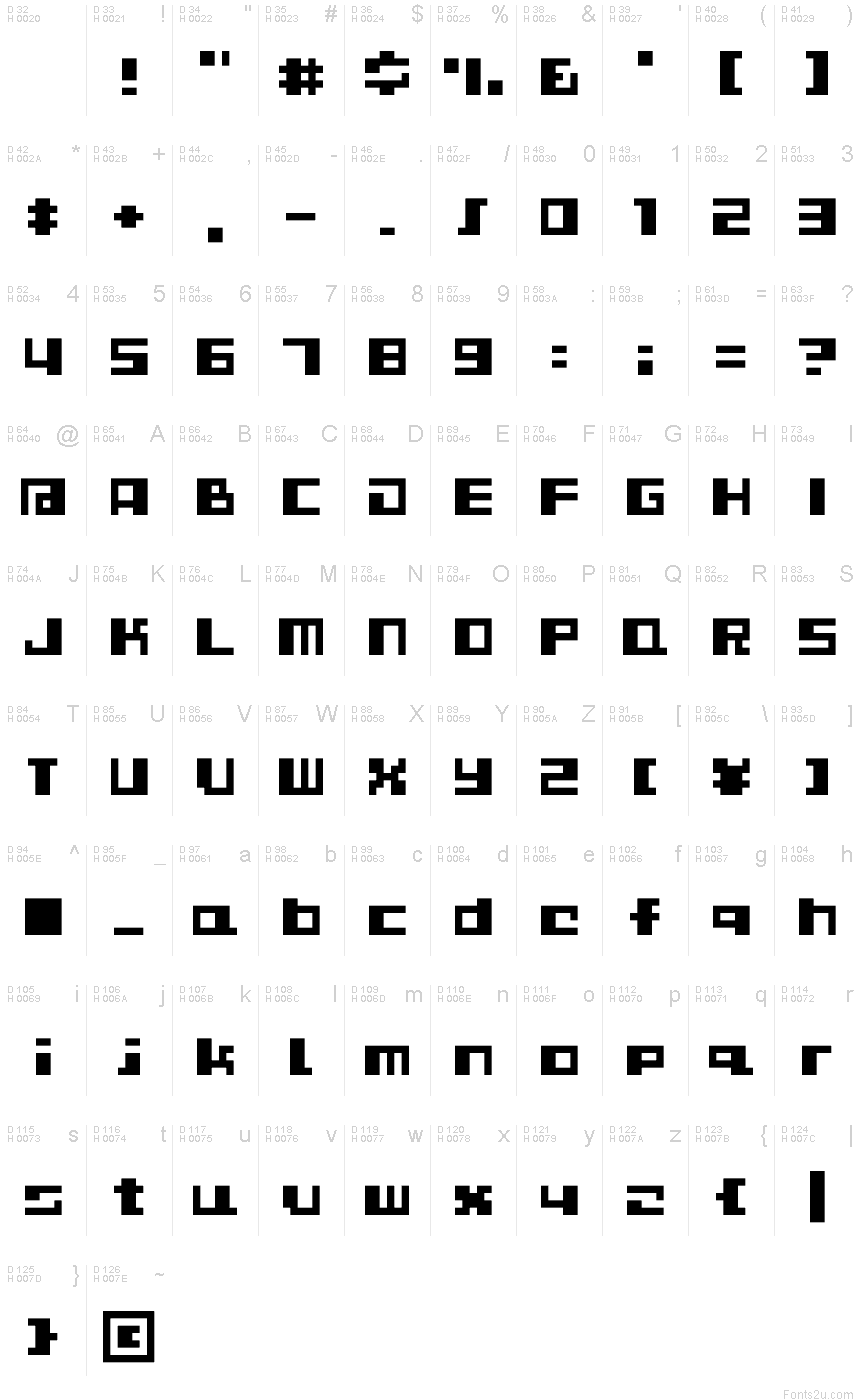
D3 CuteBitMapism TypeB
D3 Cute Bit Mapism TypeB font by DigitalDreamDesign is a free pixel bitmap typeface that captures the charm of tiny retro screens without losing clarity. Built on the D3 Cute Bit Mapism family, its ultra-compact, blocky shapes stack neatly, creating tight lines that feel like they’re stitched from bright digital beads. The squared forms, chunky stems, and snug spacing give text a toy-like, arcade-console vibe that still reads cleanly even at very small sizes.
Using D3 Cute Bit Mapism TypeB, menus, score counters, and dialogue boxes in games instantly feel more playful and authentic. This free font shines on pixel-art interfaces, nostalgia-driven websites, mini badges, app icons, and lo-fi stream overlays. Set it in all caps for crisp, uniform labels, and pair it with a smooth sans-serif at larger sizes to keep layouts readable while letting the pixel texture do the storytelling.